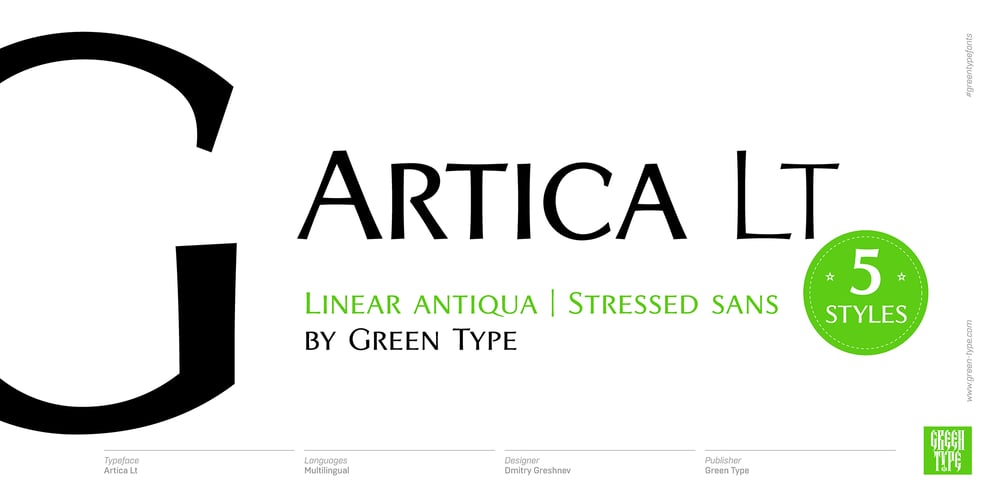
Artica Lt Font Family was designed by Dmitry Greshnev and published by Green Type. Artica Lt contains 5 styles and family package options. Artica is an elegant sans serif typeface, offered in five weights. It was inspired by classic Roman letterforms. Artica Lt includes a Unicode Latin 1252 character set.